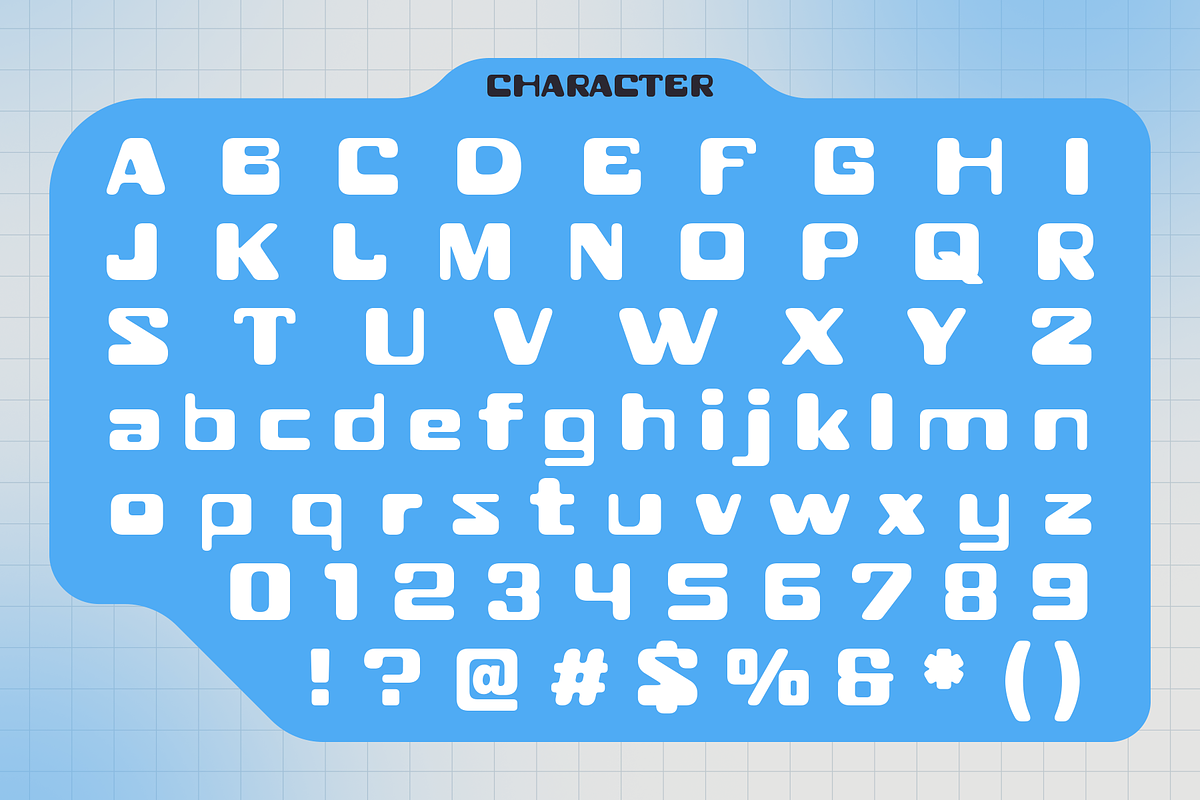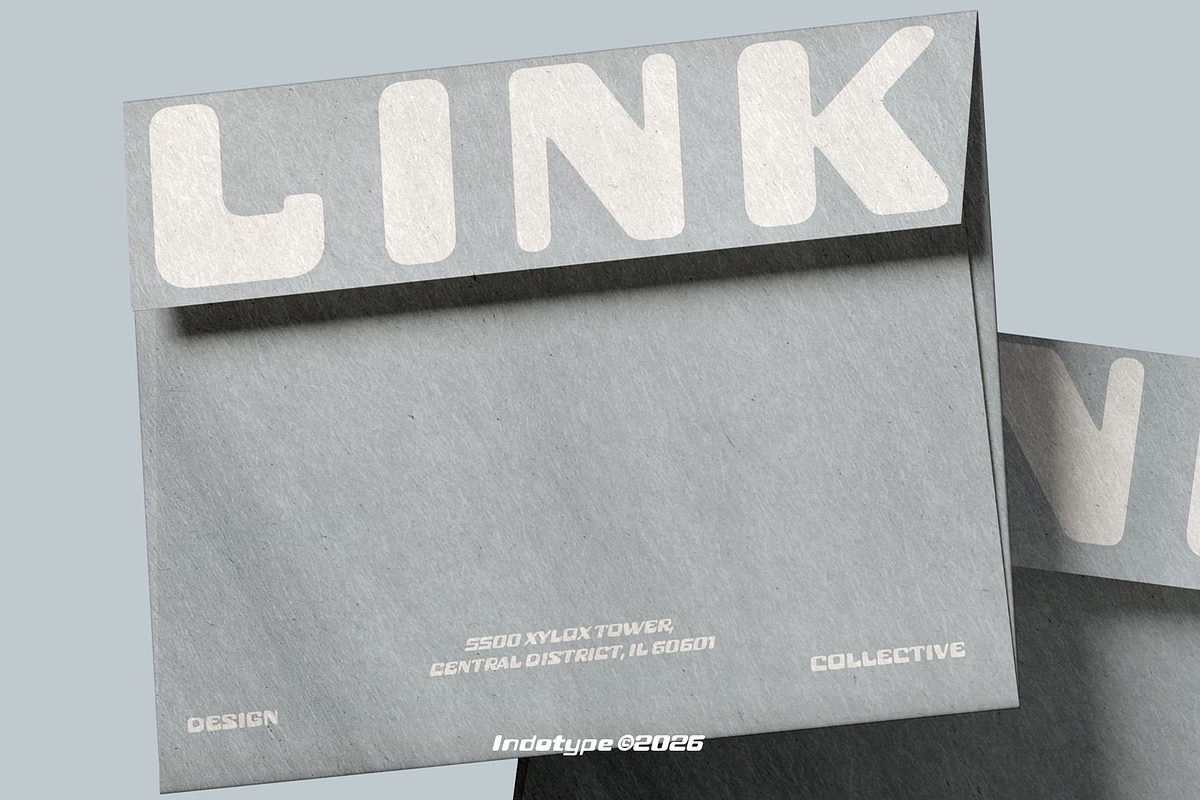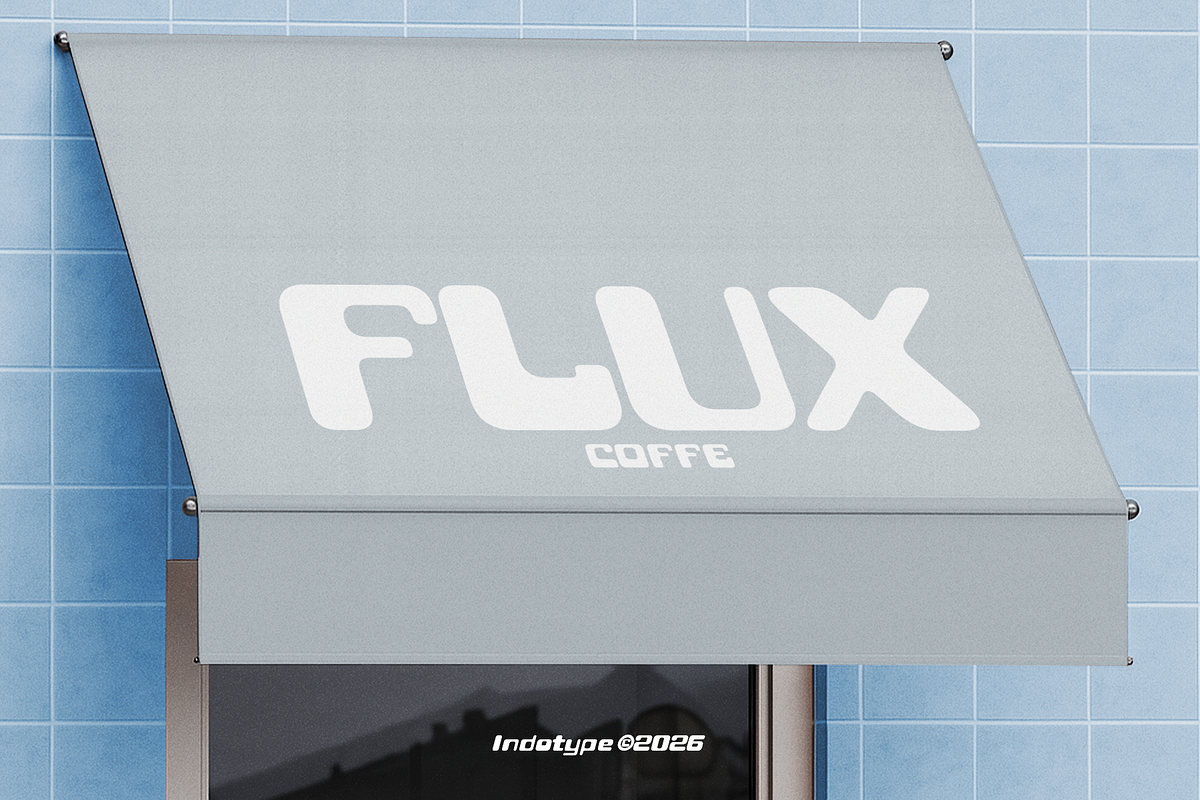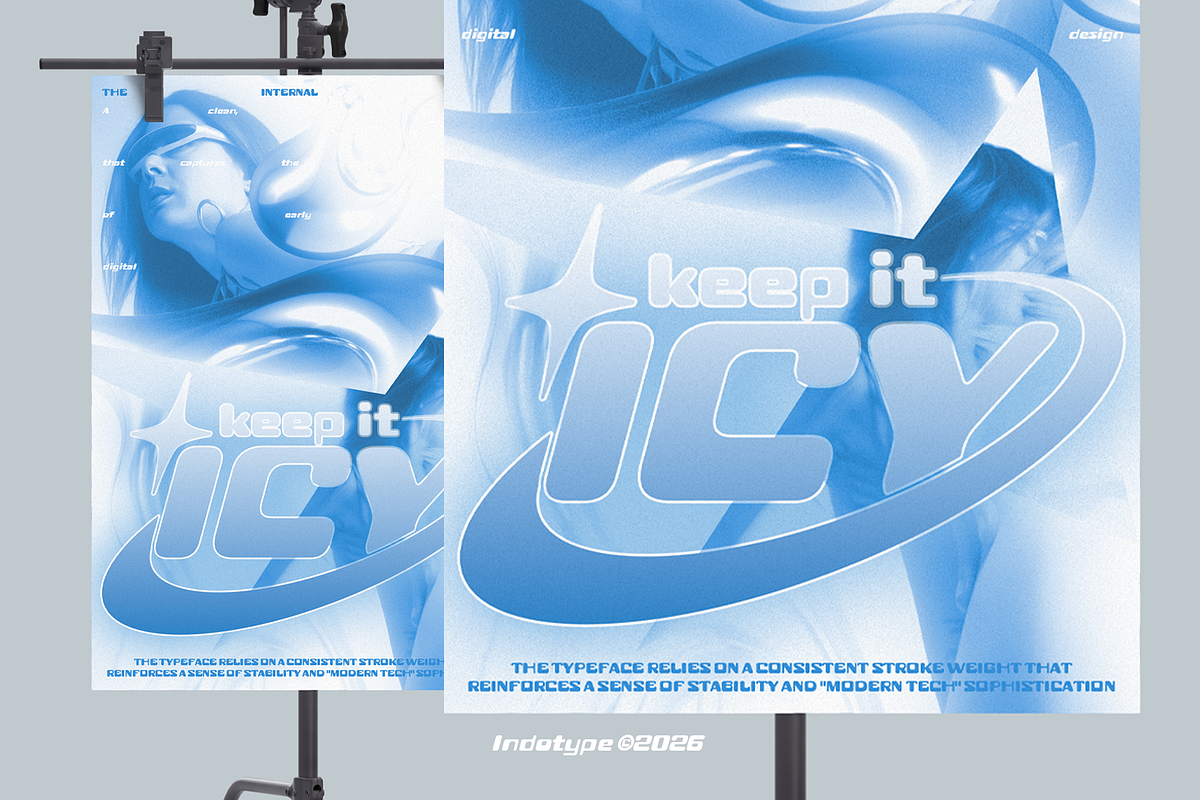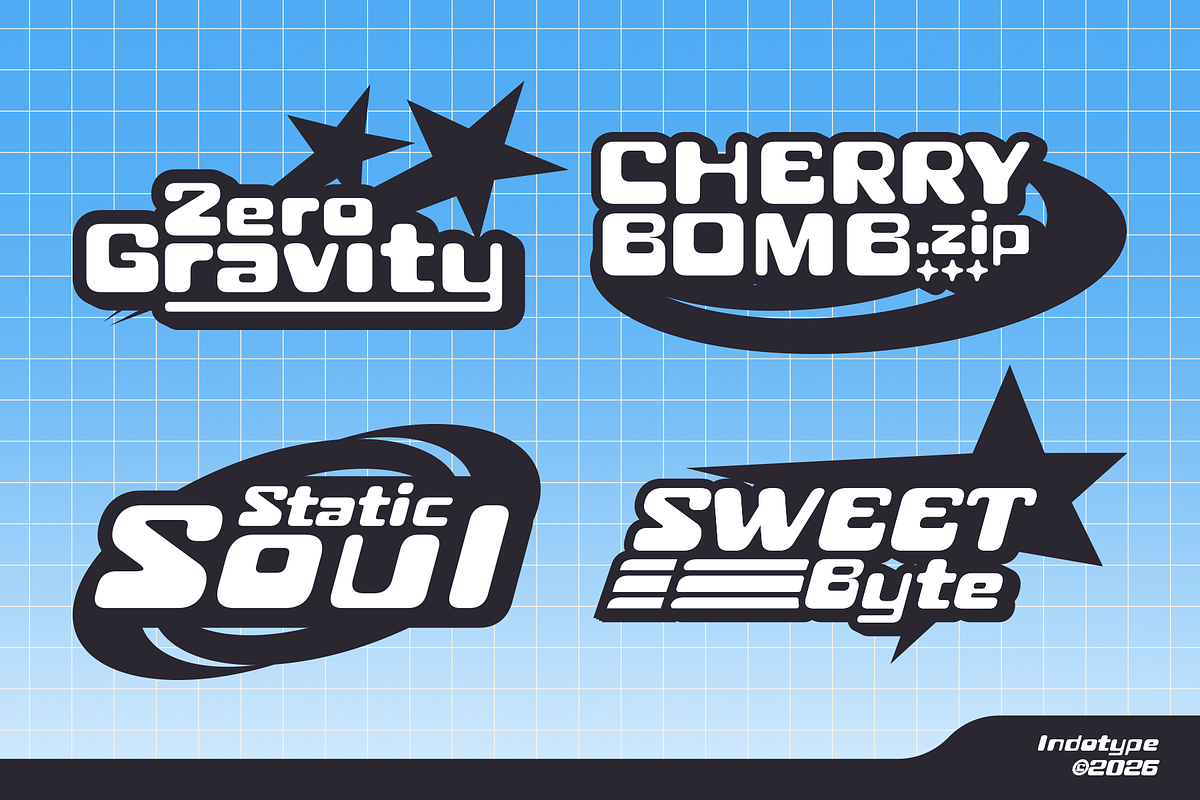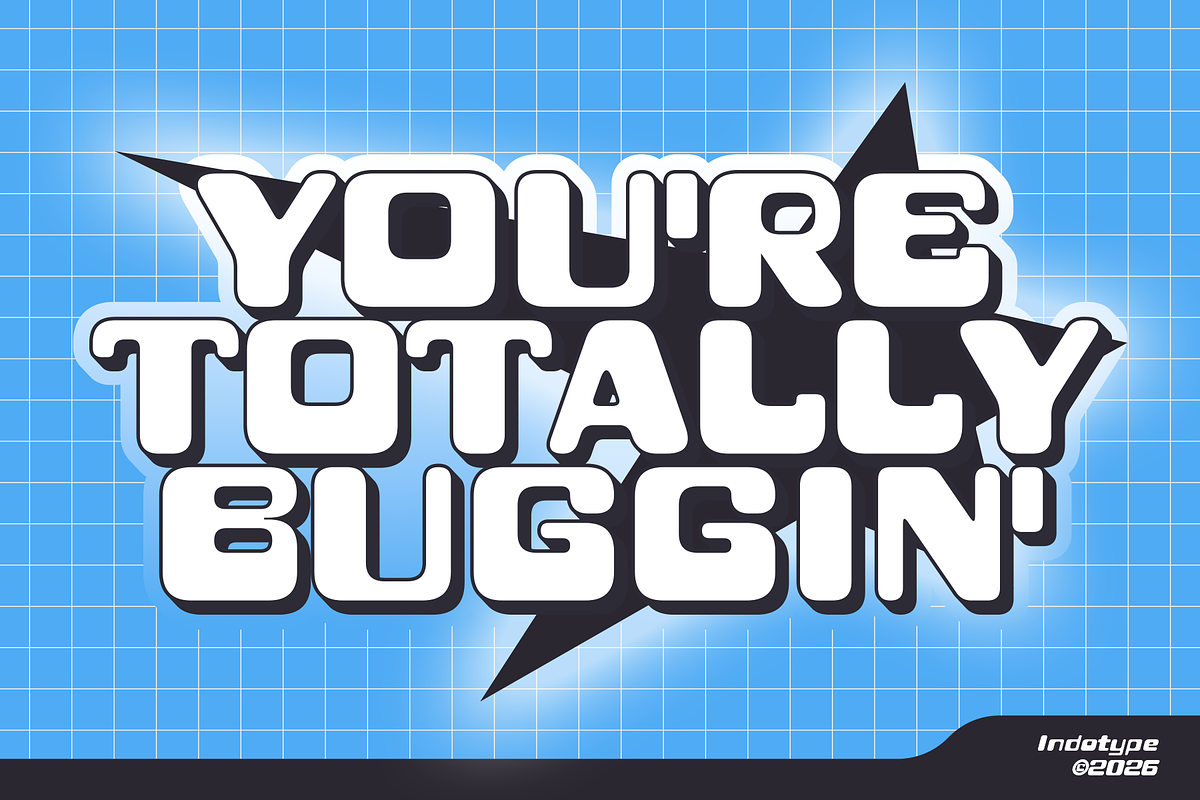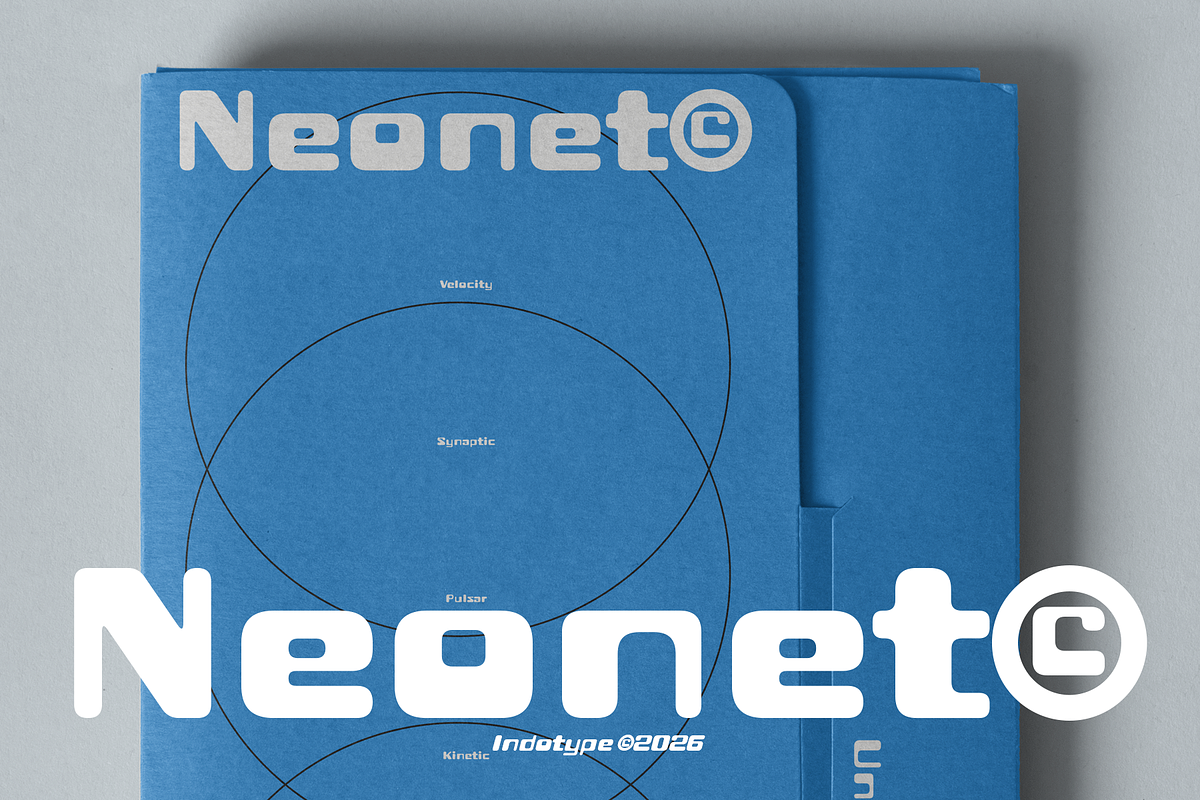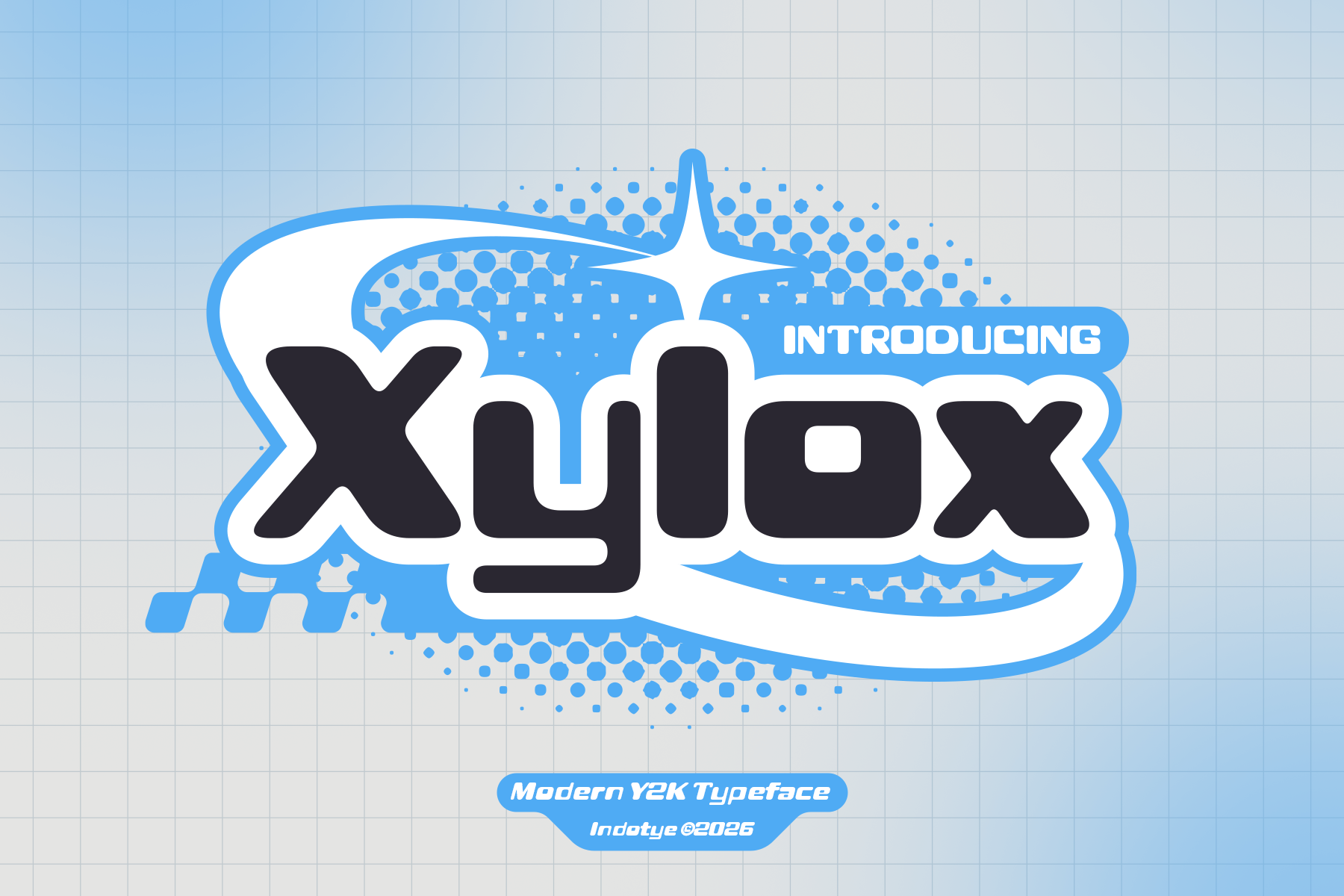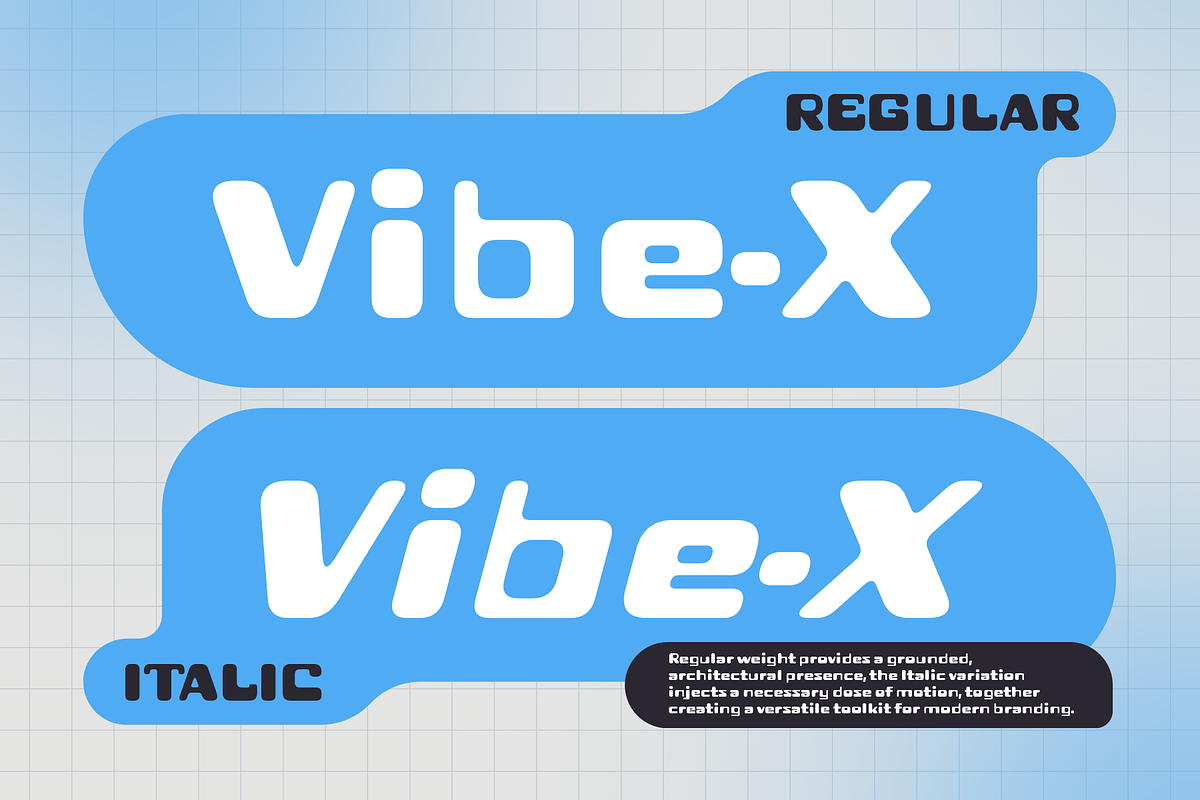
Xylox - Modern Y2K Display Typeface
Xylox is a bold, unapologetic throwback to the digital dreamscape of the late 90s and early 2000s—a time of pixelated optimism, translucent gadgets, and futuristic optimism. This Y2K-inspired typeface features sleek, elongated letterforms, sharp angles, and subtle digital distortion that evokes the aesthetic of vintage computer screens, sci-fi interfaces, and rave culture flyers. It's retro-futurism, rebooted for today. Designed for projects that want to capture that nostalgic yet forward-looking energy, Xylox is perfect for nightlife branding, tech startups with a retro edge, fashion campaigns channeling 2000s revival, and music projects embracing the cyber aesthetic. It's sleek, buzzy, and dripping with digital-era attitude.
- Ideal for: Nightlife & Club Branding, Retro Tech Startups, Y2K Fashion Campaigns, Music & Rave Flyers, Social Media Filters, Digital Art & NFTs.
- Classification: Display, Sans-Serif, Y2K, Retro-Futurism.
- Attributes: Nostalgic, Sleek, Digital, Edgy, Futuristic, Playful, Cyber.